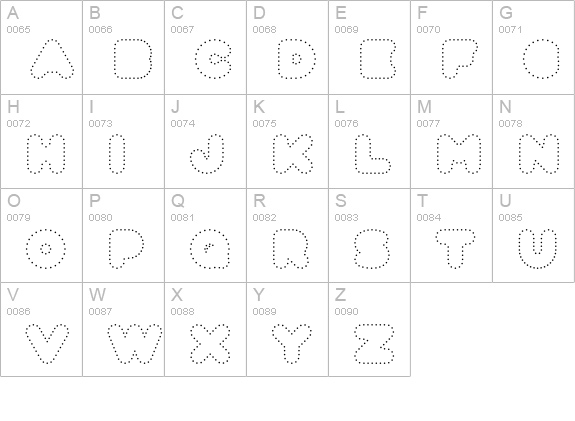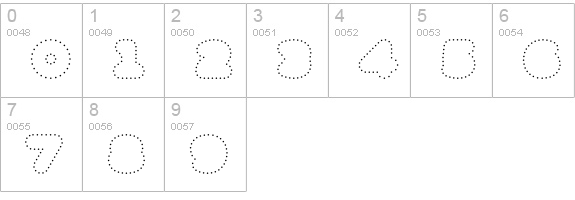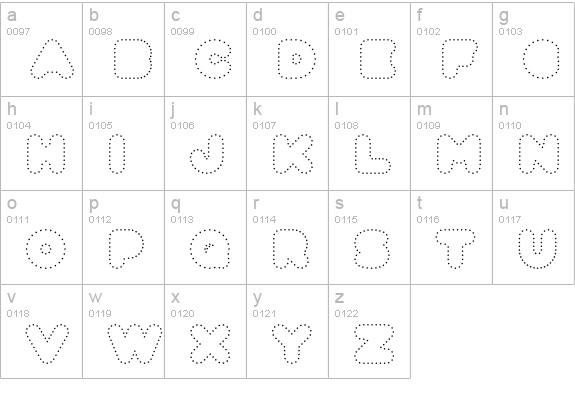
Fun City Level 5 Dots Font Details
Fun City Level 5 Dots font is a playful and energetic display typeface that adds a touch of whimsy to any design project. With its rounded dots and fun, bubbly appearance, this font is perfect for creating eye-catching headlines, posters, and logos. The unique design of Fun City Level 5 Dots font will make your text stand out and grab the attention of viewers. Best of all, Fun City Level 5 Dots font is available for free download at FontsMarket.com, making it accessible to designers of all levels. Whether you're working on a personal project or a client's campaign, this font is sure to bring a fun and lively feel to your designs. Add a touch of playfulness to your next project with Fun City Level 5 Dots font, available for free at FontsMarket.com.